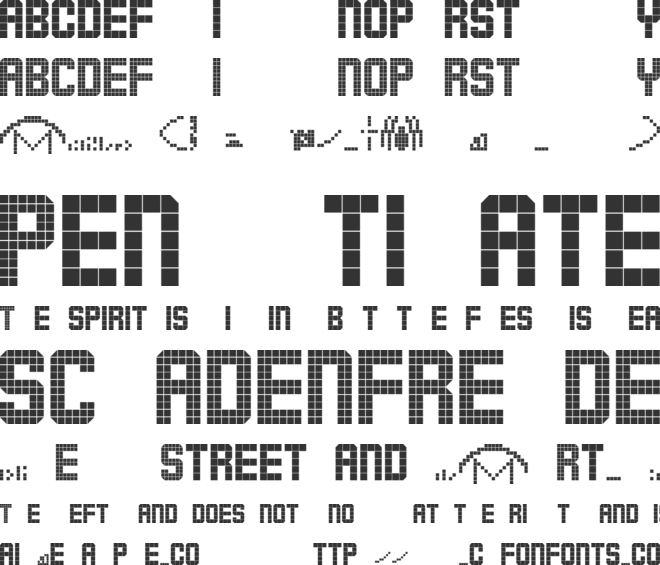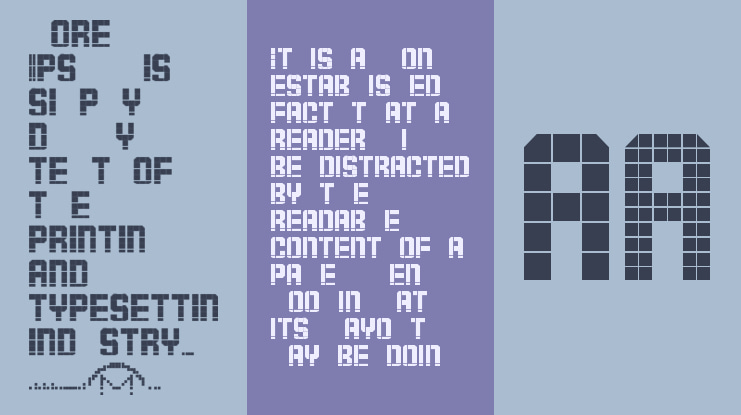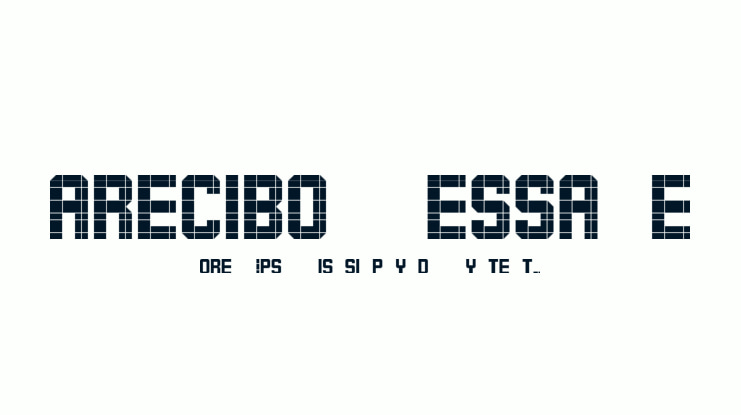
This pixelated typeface is based on the binary encoding system of the Arecibo Message sent to the globular star cluster M13 on 16th November 1974 to mark the remodeling of the Arecibo radio telescope in Puerto Rico. The capital letters are based on a 10 x 10 grid used to represent the average height of an adult male, the lowercase are larger 5 x 5 blocks just to add clarity to the glyphs. The decimal numbers from 1 to 10 as all glyph's appear in binary format.The original radio message transmitted at a frequency of 2,380 MHz was broken down into seven categories:Decimal Numbers;DNA Elements;Nucleotides;Double helix;Humantity; Planets;Telescope.